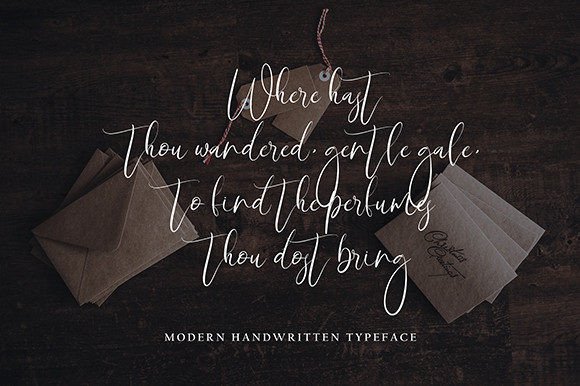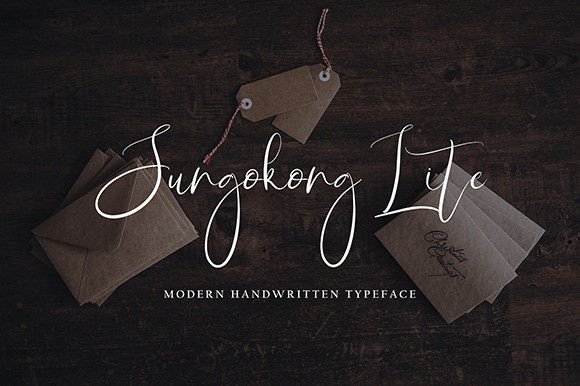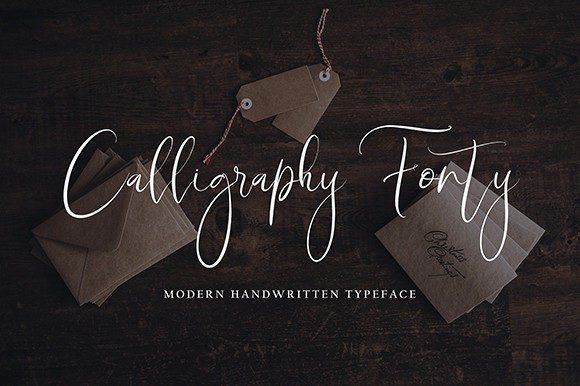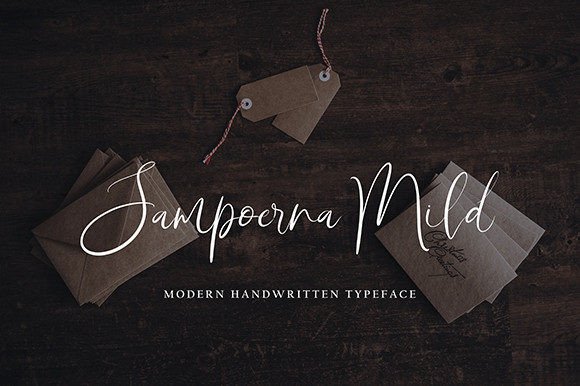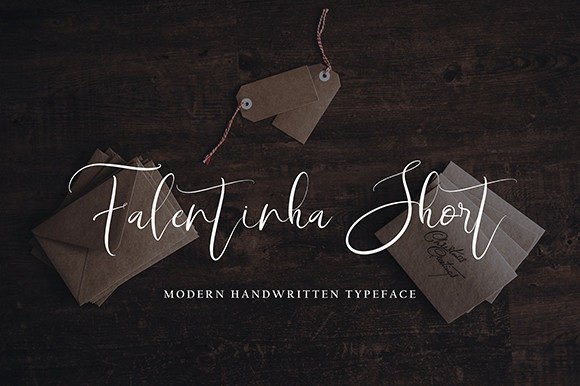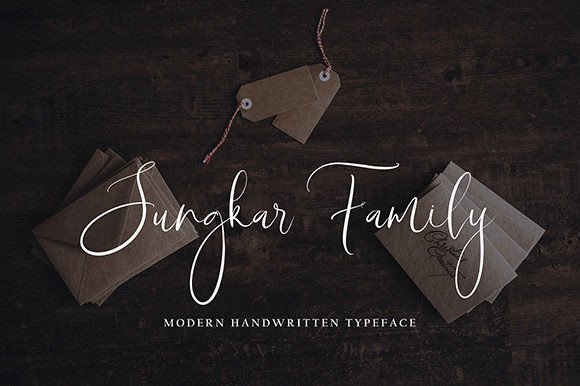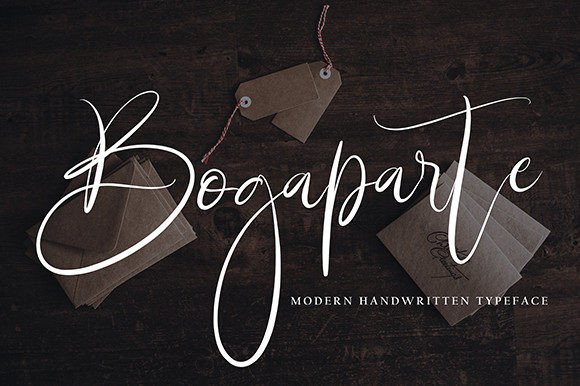
Bogaparte Font: Elevate Your Designs with Delicate Elegance
In the world of typography, few fonts manage to capture the essence of elegance and versatility as effortlessly as the Bogaparte font. This delicate and elegant handwritten font has been making waves among designers and crafters alike, and for good reason. Its distinct and well-balanced letters make it a masterpiece that can elevate any design project from ordinary to extraordinary.
The Charm of Bogaparte Font
Bogaparte’s charm lies in its unique blend of simplicity and sophistication. Each letter is carefully crafted to exude a sense of refinement and poise, making it perfect for projects that demand a touch of elegance. Whether you’re working on a logo, a wedding invitation, or a packaging design, Bogaparte’s versatile style can adapt seamlessly to your needs.
Key Features of Bogaparte Font
- Delicate and Elegant: Bogaparte’s letters are designed with precision and care, resulting in a font that is both delicate and elegant.
- Well-Balanced Letters: The font’s letters are meticulously crafted to ensure perfect balance and harmony, making it a joy to work with.
- Versatile Style: Bogaparte’s style is incredibly versatile, allowing you to use it for a wide range of design projects, from stationery to digital media.
- Handwritten Charm: The font’s handwritten nature adds a touch of warmth and personality to any design, making it perfect for projects that require a personal touch.
Design Possibilities with Bogaparte Font
The possibilities are endless when it comes to using Bogaparte font in your designs. Here are a few ideas to get you started:
- Wedding Stationery: Create beautiful wedding invitations, save-the-date cards, and thank-you notes with Bogaparte’s elegant script.
- Branding and Logo Design: Use Bogaparte to create a sophisticated logo or brand identity that exudes refinement and poise.
- Packaging Design: Add a touch of elegance to your product packaging with Bogaparte’s delicate and versatile style.
- Digital Media: Use Bogaparte to create stunning social media graphics, blog posts, and website headers that showcase your brand’s personality.
Tips for Working with Bogaparte Font
To get the most out of Bogaparte font, here are a few tips to keep in mind:
- Experiment with Pairings: Try pairing Bogaparte with other fonts to create unique and interesting combinations.
- Play with Sizes: Experiment with different font sizes to create visual hierarchy and add depth to your designs.
- Pay Attention to Spacing: Make sure to adjust the spacing between letters and words to ensure optimal readability and aesthetics.
In conclusion, Bogaparte font is a true gem in the world of typography. Its delicate and elegant handwritten style, combined with its versatility and charm, make it a must-have for designers and crafters looking to elevate their designs. Whether you’re working on a personal project or a client’s, Bogaparte is sure to impress. So why wait? Fall in love with Bogaparte’s incredibly versatile style and use it to create spectacular designs that leave a lasting impression!